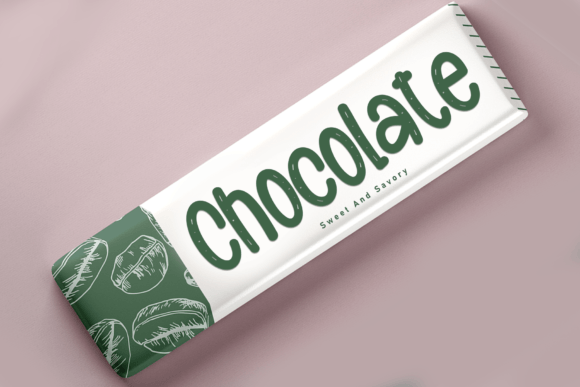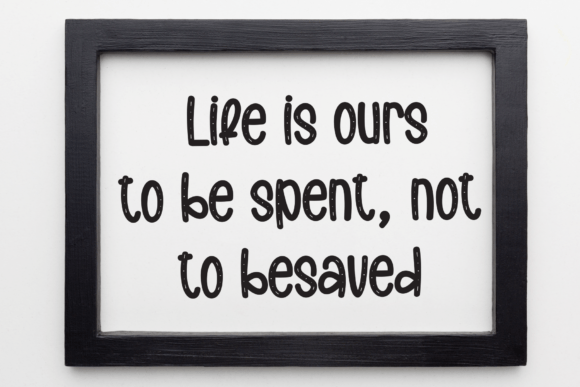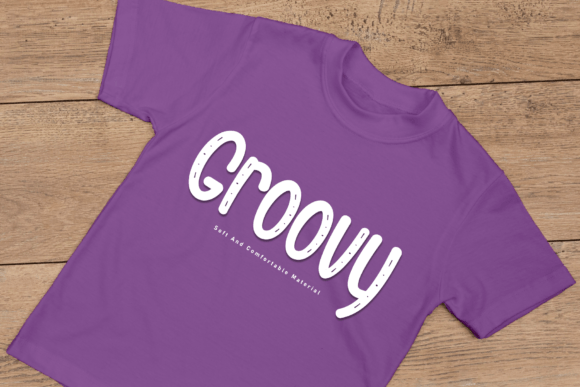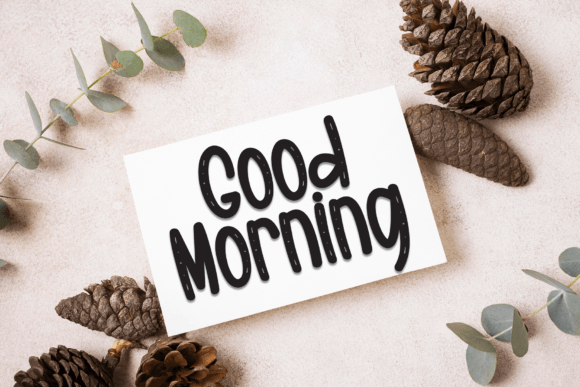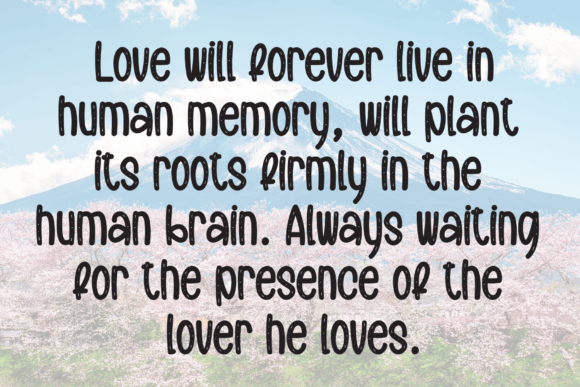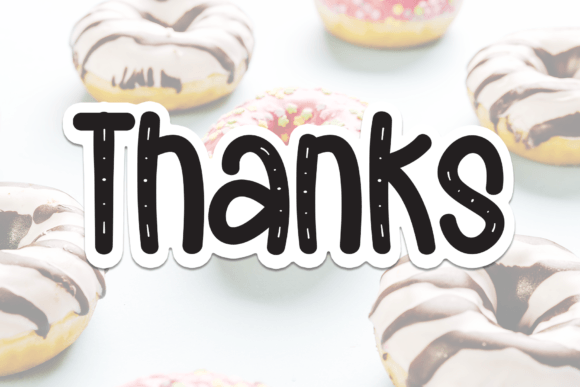
Introduction to Donut Cake Font
Remember that moment when a single design element sparks a whole new creative project? For designers, it’s not uncommon to stumble upon a font that sets the tone for an entire design. One such font that has captured the hearts of many is the Donut Cake Font – a sweet and friendly handwritten font that exudes natural charm and uniqueness.
What makes Donut Cake Font a valuable addition to any design resource is its versatility. Whether you’re working on a project that requires a playful touch or a more subtle approach, this font can be used to create a wide range of designs, limited only by your imagination. From logos to social media graphics, the Donut Cake Font is a perfect fit for any creative project.
Key Features of Donut Cake Font
- Unique Design: A playful, whimsical font perfect for creative projects, especially those involving baked goods, desserts, or children’s themes.
Honest Review: Donut Cake Font
I recently stumbled upon the Donut Cake Font, and I must say it’s a delightful addition to my design resources. As a designer, I’m always on the lookout for unique and creative elements to elevate my projects. This font does just that, with its playful and whimsical style.
Here are some of the things that work well with the Donut Cake Font:
- High-quality design: The font is crisp and clean, making it perfect for use in a variety of contexts.
That being said, there are some limitations to consider:
- Limited character set: The font only includes a limited set of characters, which may make it less suitable for longer texts.
- Not ideal for body text: Due to its playful style, the font may not be the best choice for body text, but it’s perfect for headings and titles.
The Donut Cake Font is ideal for use in food-related designs, such as bakery menus, restaurant logos, and dessert labels. It’s also great for use in creative projects, such as invitations, posters, and social media graphics.